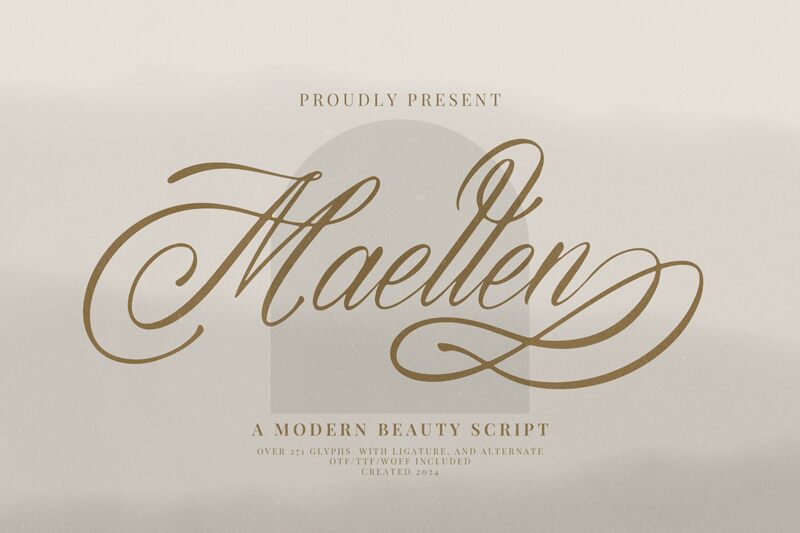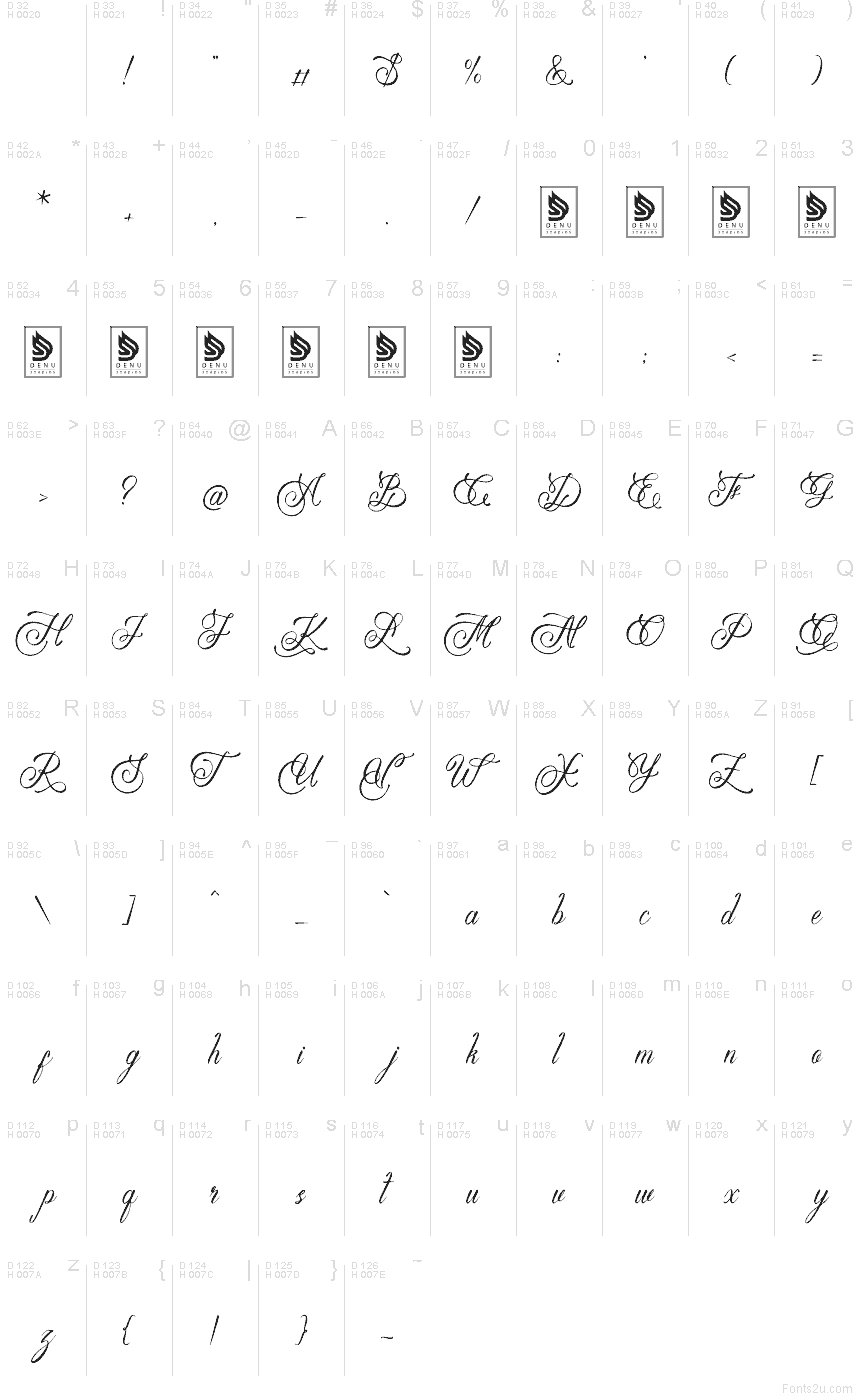
Maellen by Denustudios is a free calligraphy font with a formal script voice and long, airy flourishes. The letters lean into high-contrast strokes and looping entry lines, while the sweeping capital forms give the wordmark a romantic, engraved invitation feel rather than a casual brush look.
It fits naturally in wedding stationery, beauty branding, perfume packaging, boutique logos, and editorial cover lines where a free font can carry the whole mood in just a few words. Use it for title cards, monograms, or short signatures when you want those extended swashes and tall, elegant rhythm to do most of the visual work.